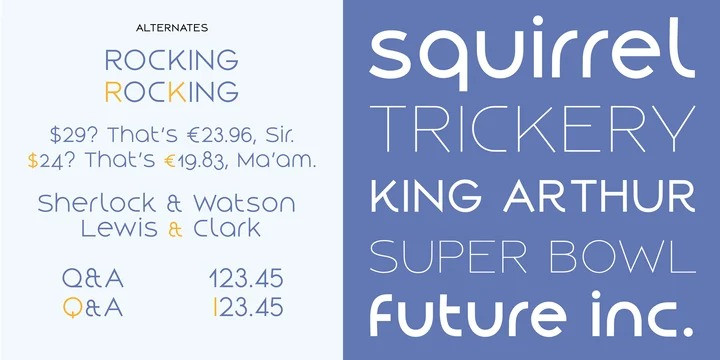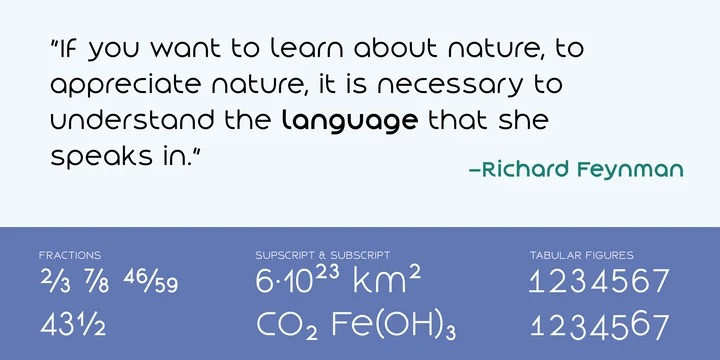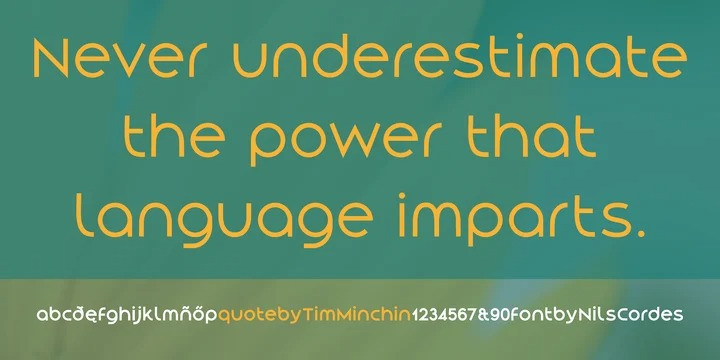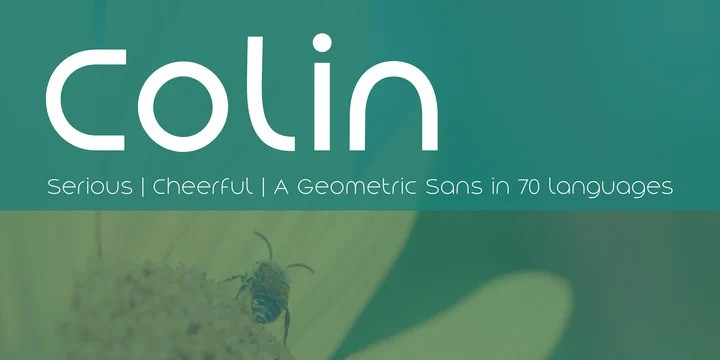
Colin Sans Serif Font
This is a modern and elegant sans serif font family created by Tickbite Type with a large x-height that, to me, communicates both seriousness and cheerfulness. It supports 70 languages incl. monotonic Greek and comes in 7 weights with a small number of alternate glyphs (ss01) for more flexibility. It features fractions, old style and tabular figures. Colin works great in titles, displays and short paragraphs.